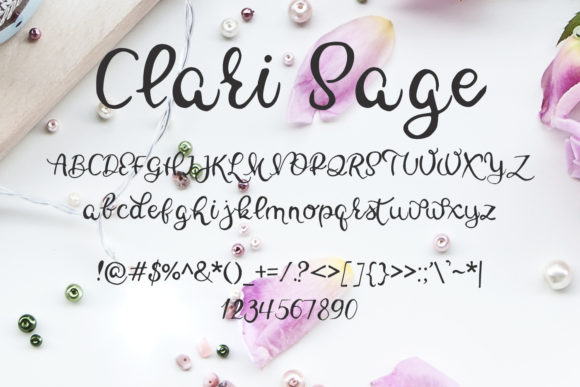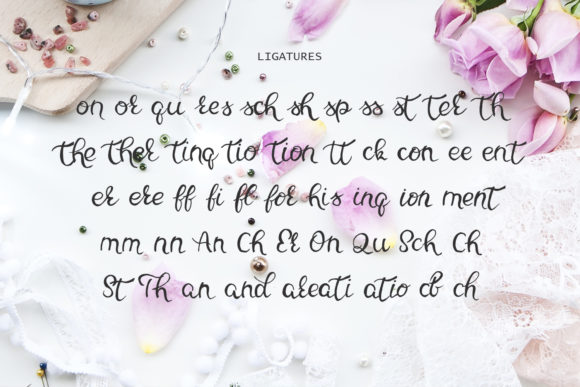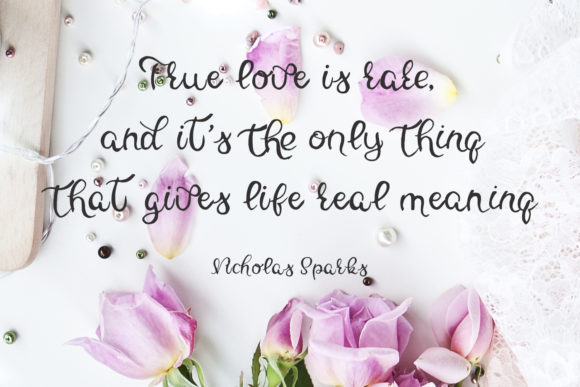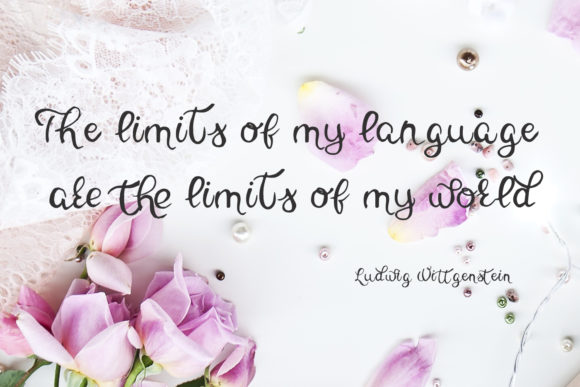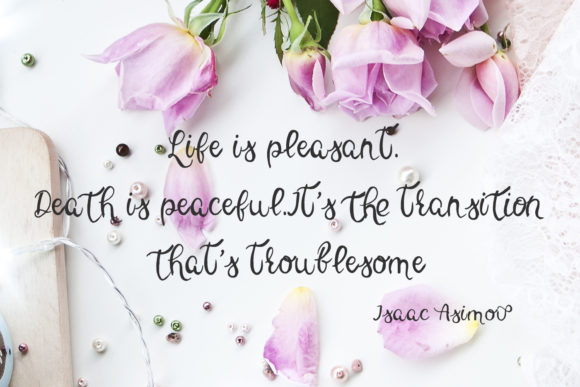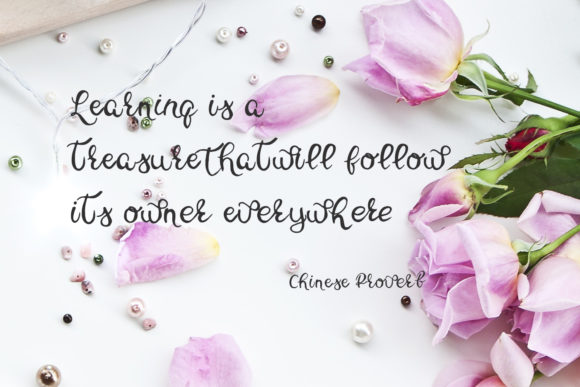
Discover the Elegance of Clary Sage Font: A Delicate Handwritten Masterpiece
Are you a designer or crafter looking for a font that exudes elegance and sophistication? Look no further than the Clary Sage Font, a delicate and handwritten font that is sure to capture your heart. With its distinct and well-rounded letters, Clary Sage is a masterpiece that can elevate any design to new heights.
The Characteristics of Clary Sage Font
Clary Sage Font is a beautifully crafted handwritten font that boasts a unique and versatile style. Its letters are carefully designed to be distinct and well-rounded, giving the font a smooth and flowing appearance. The font’s delicate nature makes it perfect for designs that require a touch of elegance and sophistication.
The Versatility of Clary Sage Font
One of the standout features of Clary Sage Font is its incredible versatility. Whether you’re designing a wedding invitation, a branding project, or a craft project, this font can adapt to any style or theme. Its elegant and refined appearance makes it perfect for designs that require a touch of sophistication, while its playful and whimsical nature makes it ideal for more creative and artistic projects.
Why Choose Clary Sage Font?
So, why should you choose Clary Sage Font for your next design project? Here are just a few reasons:
- Elegant and Sophisticated: Clary Sage Font exudes elegance and sophistication, making it perfect for designs that require a touch of refinement.
- Versatile: This font can adapt to any style or theme, making it perfect for a wide range of design projects.
- Unique: Clary Sage Font has a unique and distinctive style that sets it apart from other fonts.
- Easy to Read: The font’s clear and well-rounded letters make it easy to read, even at small sizes.
Using Clary Sage Font in Your Designs
Clary Sage Font is perfect for a wide range of design projects, including:
- Wedding Invitations: Add a touch of elegance and sophistication to your wedding invitations with Clary Sage Font.
- Branding Projects: Use Clary Sage Font to create a refined and professional brand identity.
- Craft Projects: Add a touch of whimsy and creativity to your craft projects with Clary Sage Font.
- Digital Designs: Use Clary Sage Font to create stunning digital designs, including social media graphics and website headers.
Tips for Getting the Most Out of Clary Sage Font
Here are a few tips for getting the most out of Clary Sage Font:
- Experiment with Different Sizes: Clary Sage Font looks great at a range of sizes, from small and delicate to large and bold.
- Pair with Other Fonts: Try pairing Clary Sage Font with other fonts to create a unique and interesting contrast.
- Use in Combination with Images: Use Clary Sage Font in combination with images to create a stunning and eye-catching design.
In conclusion, Clary Sage Font is a delicate and elegant handwritten font that is sure to capture your heart. With its distinct and well-rounded letters, this font is a masterpiece that can elevate any design to new heights. Its incredible versatility makes it perfect for a wide range of design projects, from wedding invitations to branding projects and craft projects. So why not give Clary Sage Font a try and see the difference it can make in your designs?